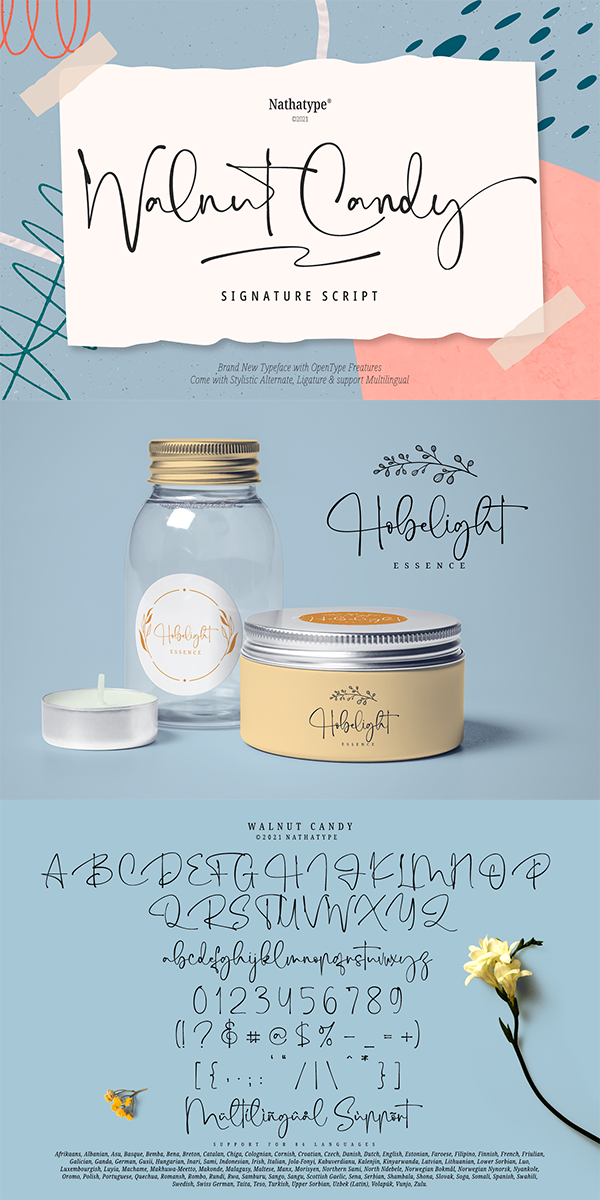
Walnut Candy Font
About Walnut Candy
‘Walnut Candy’ – A Signature Font
Walnut Candy is a handcrafted font designed to bring your branding to life and add a touch of elegance, modernity and style. It is perfect for social media branding projects, fashion designs, printed quotes, packagings, or even as a stylish text overlaying any background images.
Our font always includes a Multilingual Option to make your branding reach an audience globally. See the previews above to get to know how to use them. Happy designing!